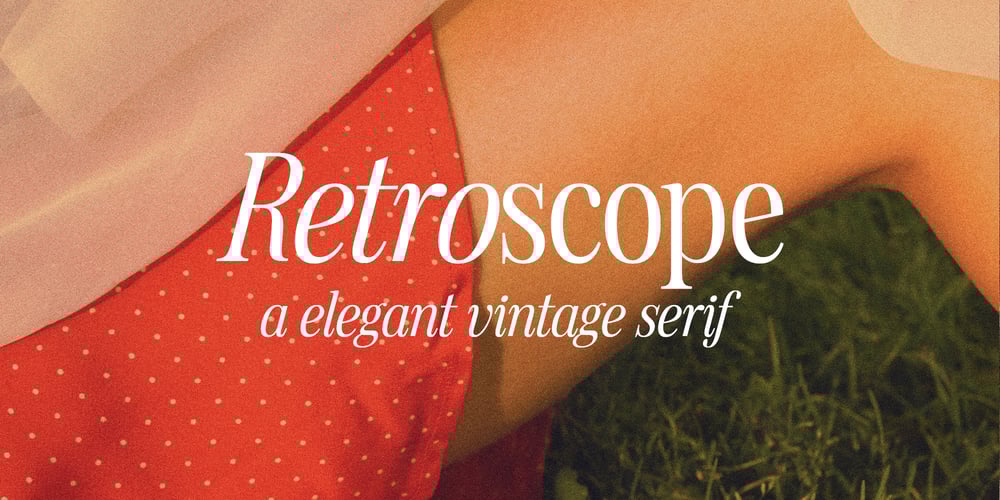
Retroscope Font Family was designed by Dmitrii Chirkov and published by Supfonts. Retroscope contains 2 styles and family package options. Retroscope – a charming serif in retro style of the 80s and 90s with nostalgic notes! The dense structure will give an incredible retro vibe to your project.Come in two versions, one of which is strict and straight, and the second is playful and inclinedFont is an open type with clean shapes and precise kerning.Language support: All European languagesDon’t forget to subscribe so you don’t miss out on the new awesome fontsDima